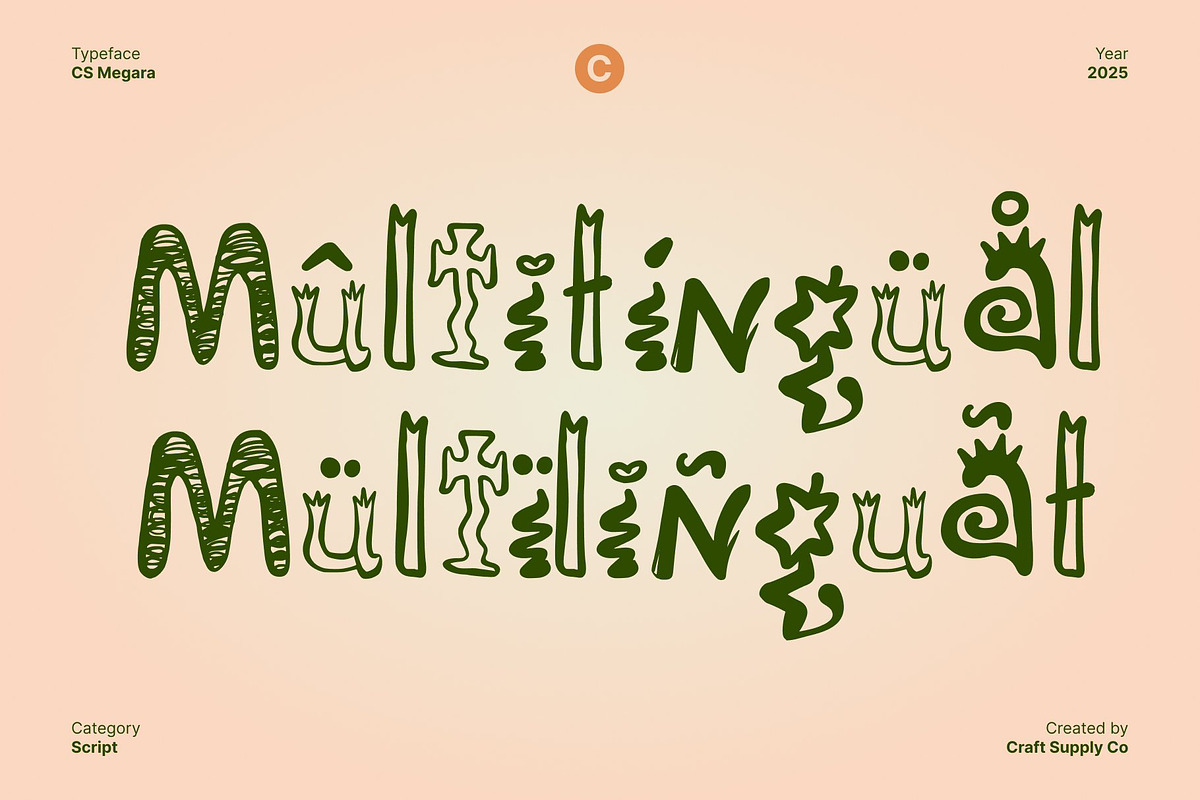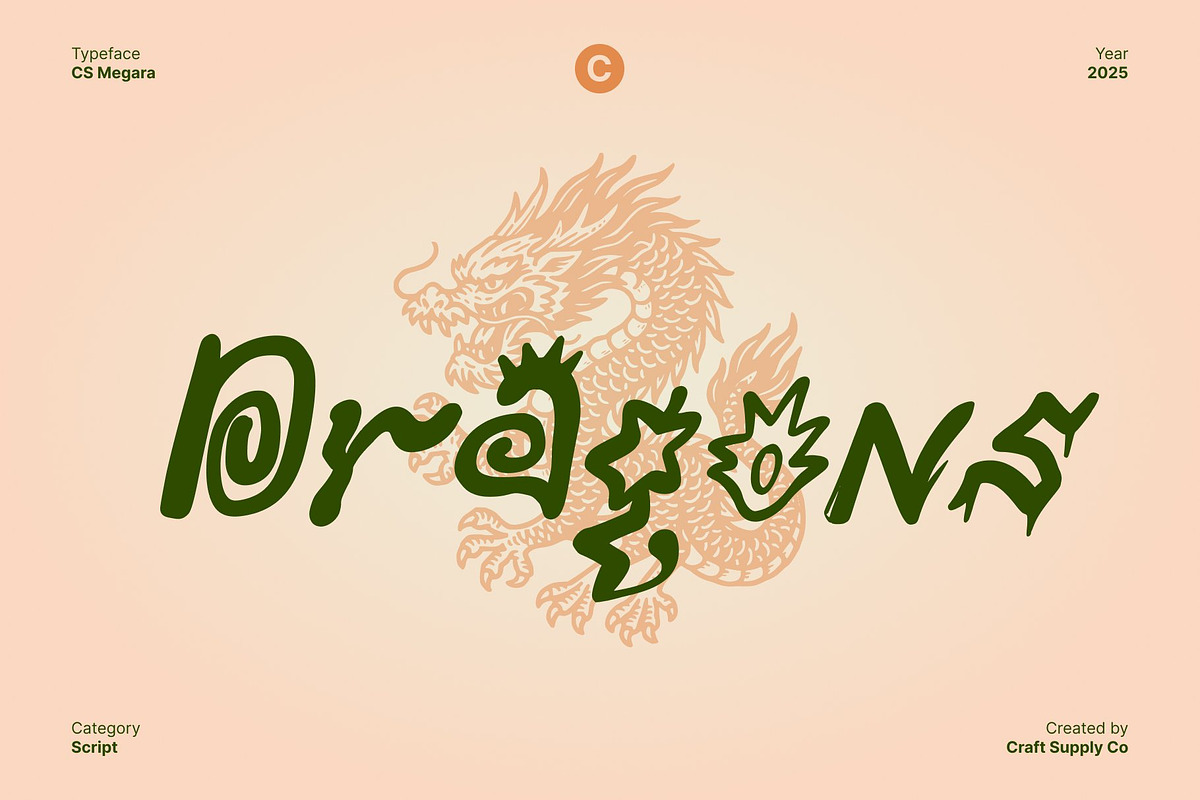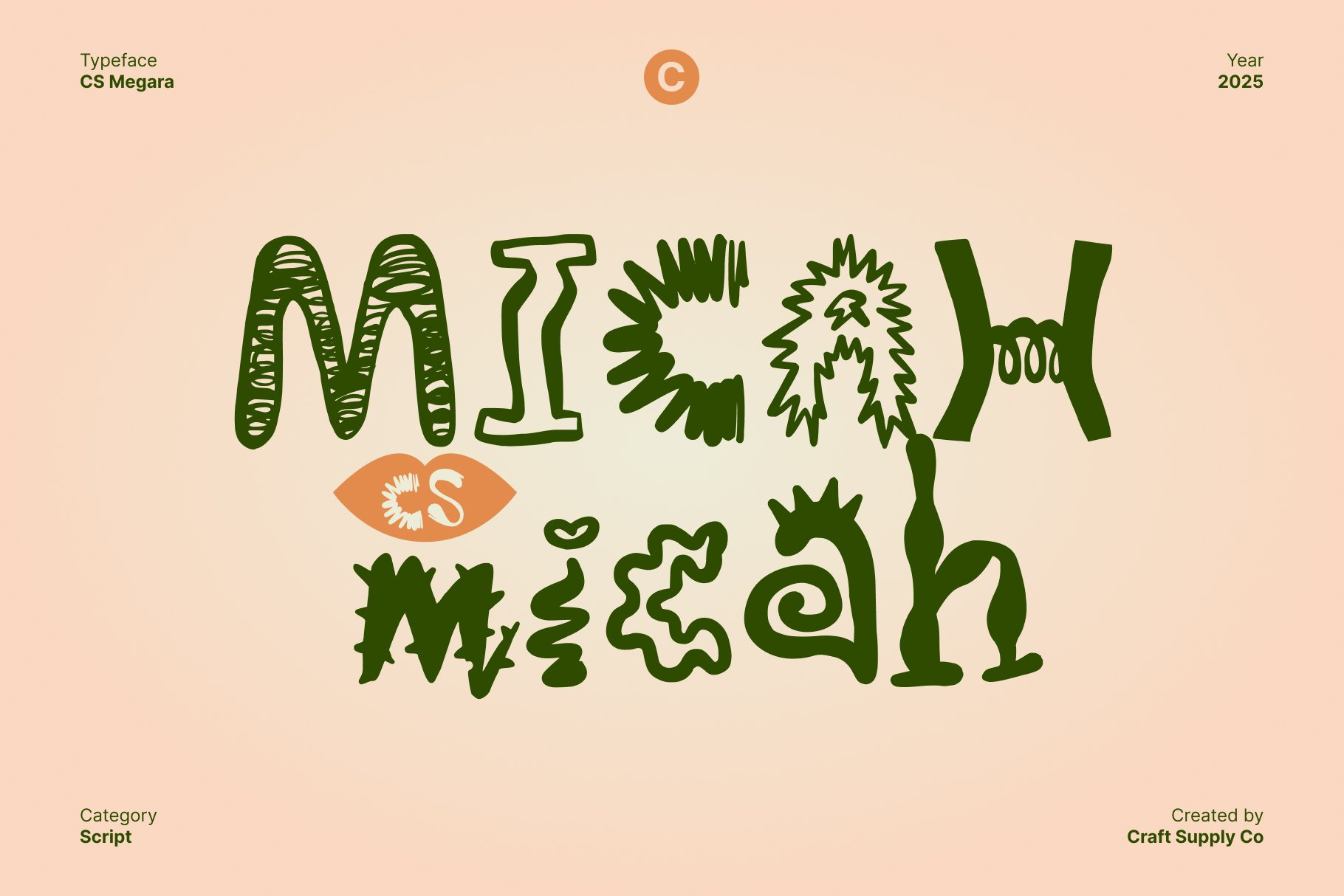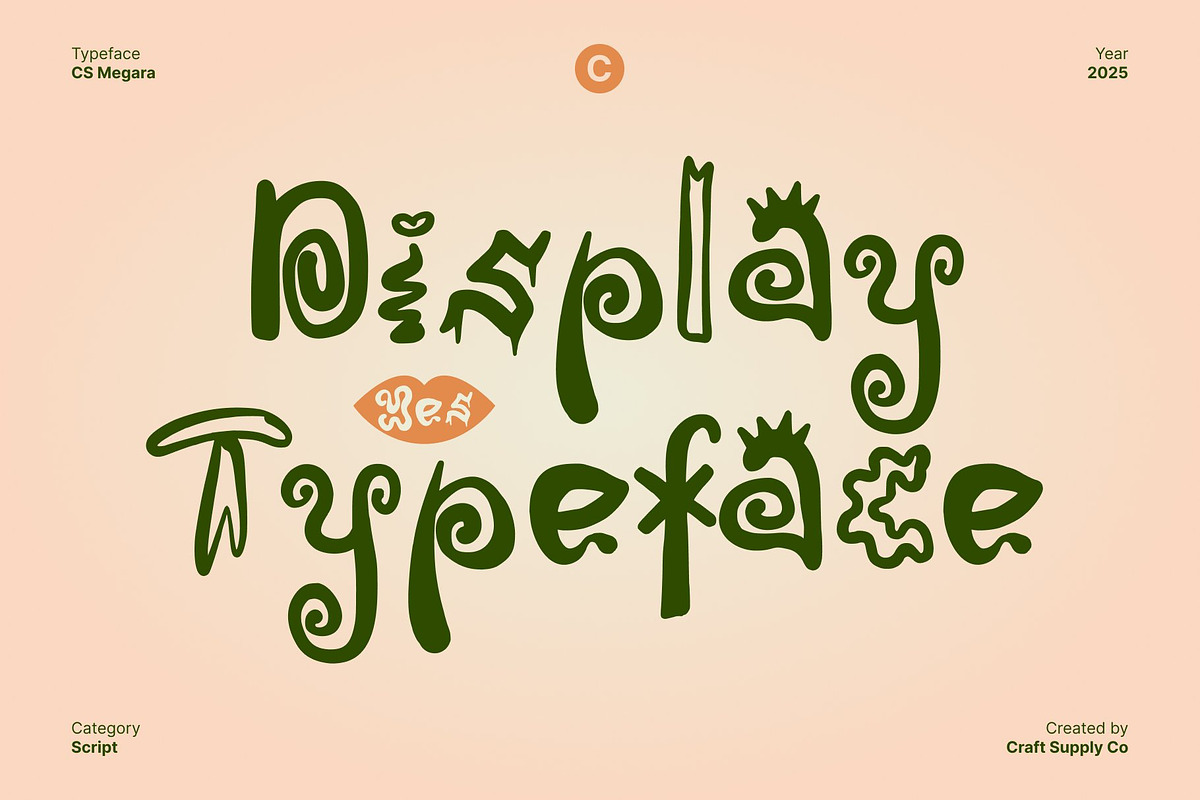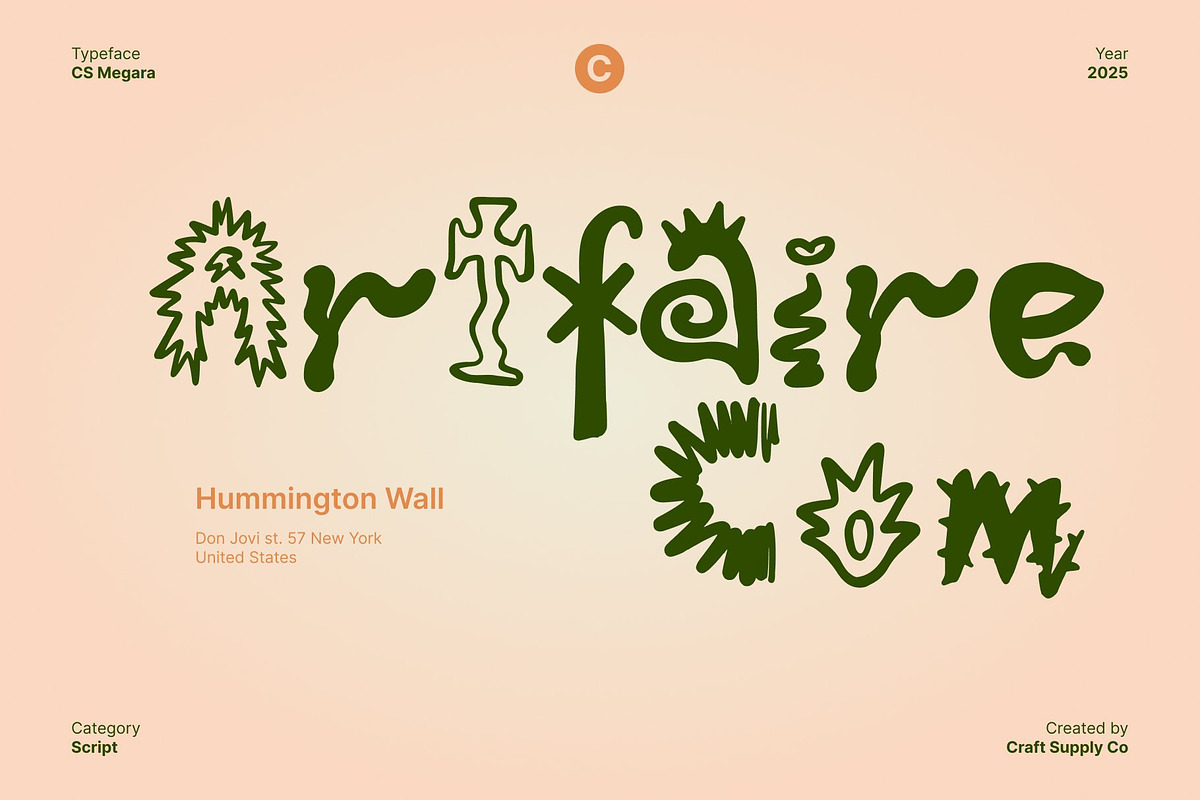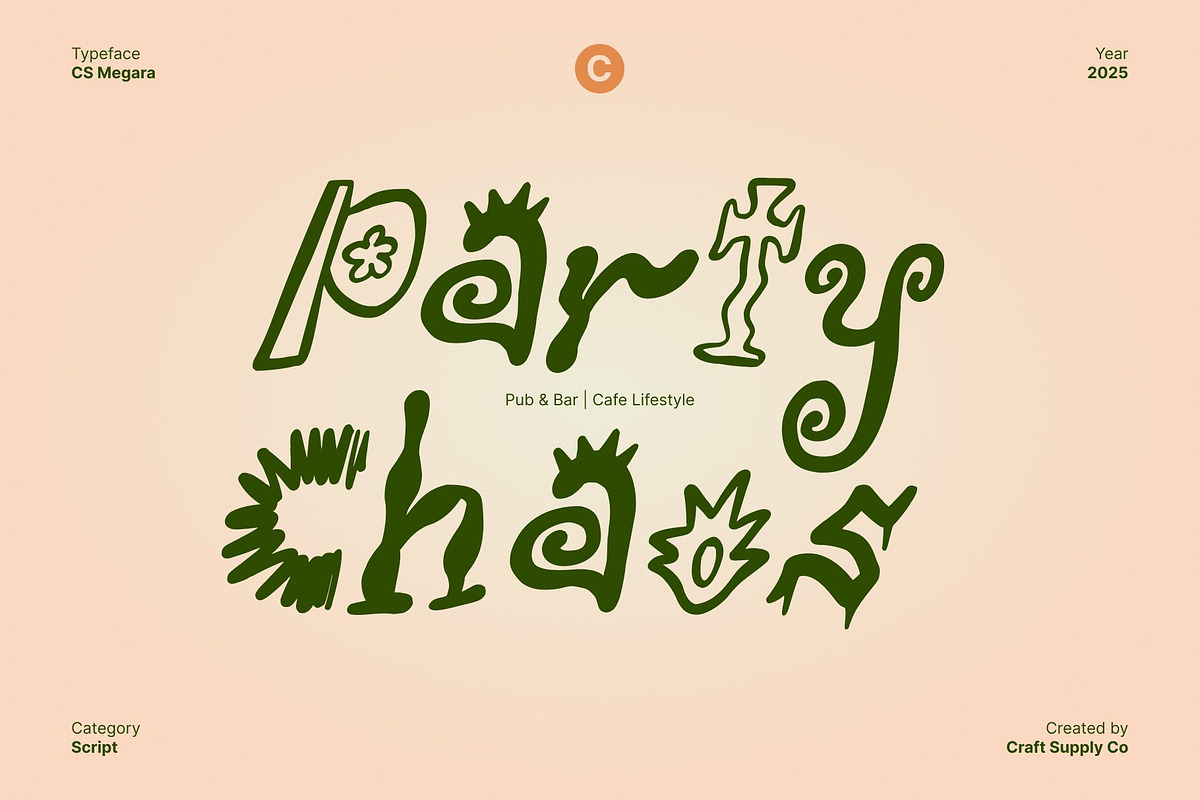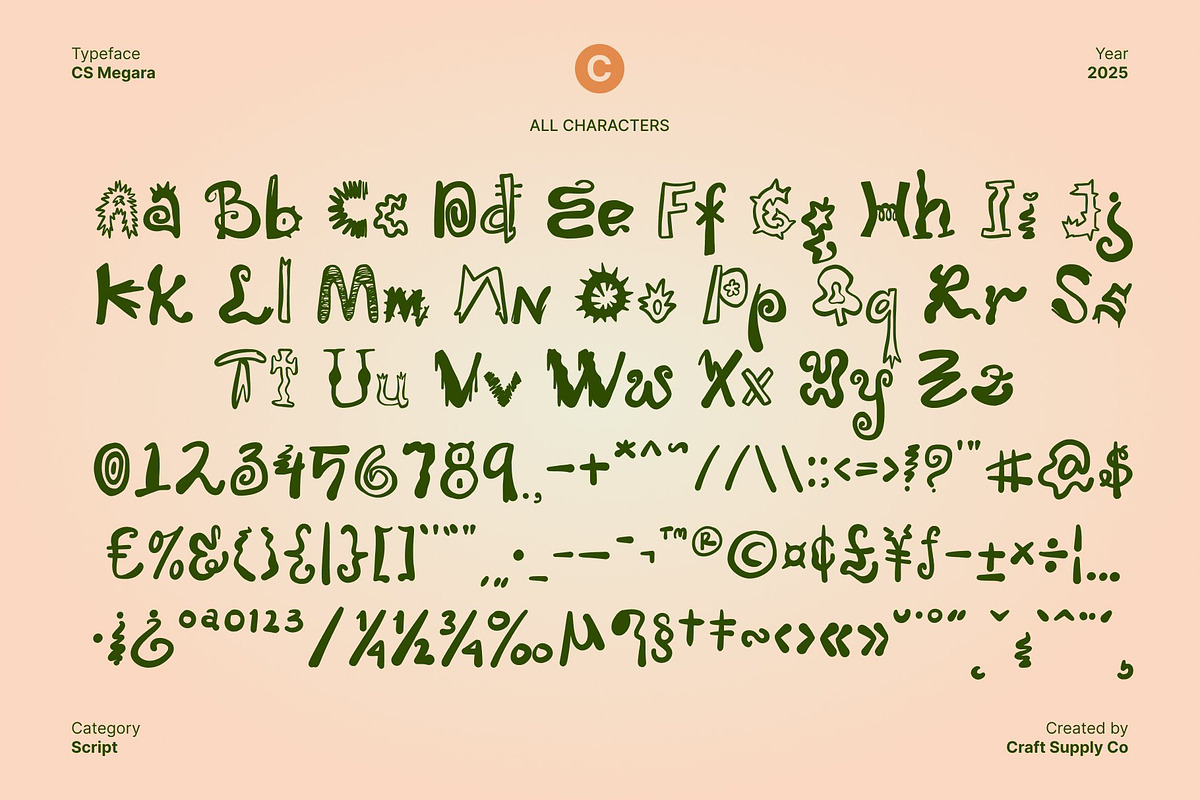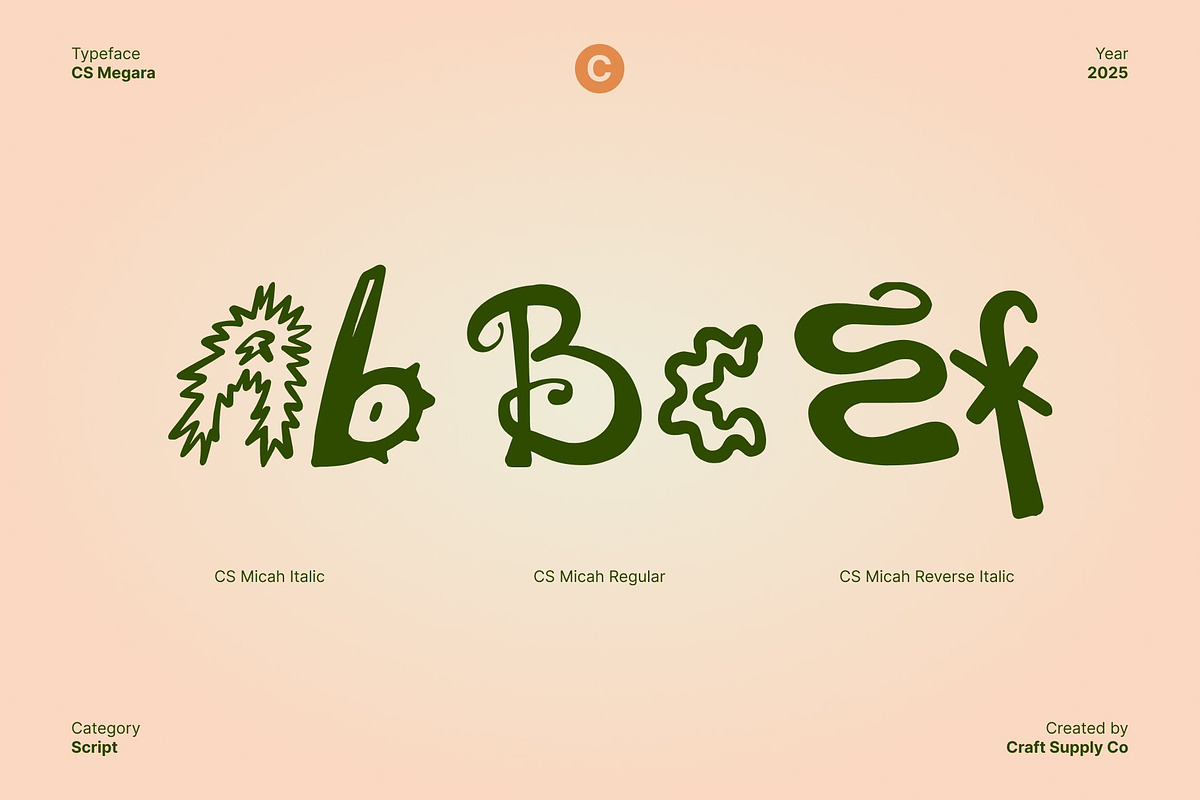
CS Micah – Whimsical Font
Whimsical Charm with Playful Personality
Artistic Whimsical Font with Originality This is a whimsical font full of charm and creative character. Its quirky, fantasy, playful letterforms are designed to feel lively and imaginative, adding a unique personality to every design.
Quirky Shapes for Expressive Typography With its artistic curves and unconventional forms, this font turns ordinary text into a fun visual experience. Each letter radiates energy and spontaneity, giving your projects a distinct, joyful voice.
Playful and Inviting Design The font’s whimsical style makes it approachable and friendly while maintaining a sense of artistic flair. Its quirky forms invite viewers to engage, making it perfect for designs that want to stand out with personality.
Perfect for Fun Branding and Creative Projects This font shines in fun branding, posters, packaging, and other creative projects. Its combination of originality, charm, and playful design ensures your work feels imaginative, lively, and full of character.
- CS Micah Regular
- CS Micah Italic
- CS Micah Reverse Italic